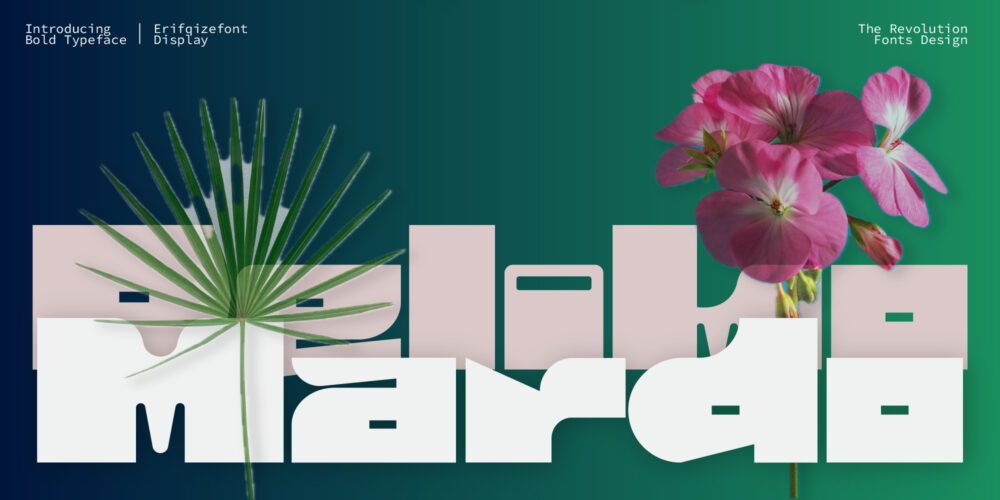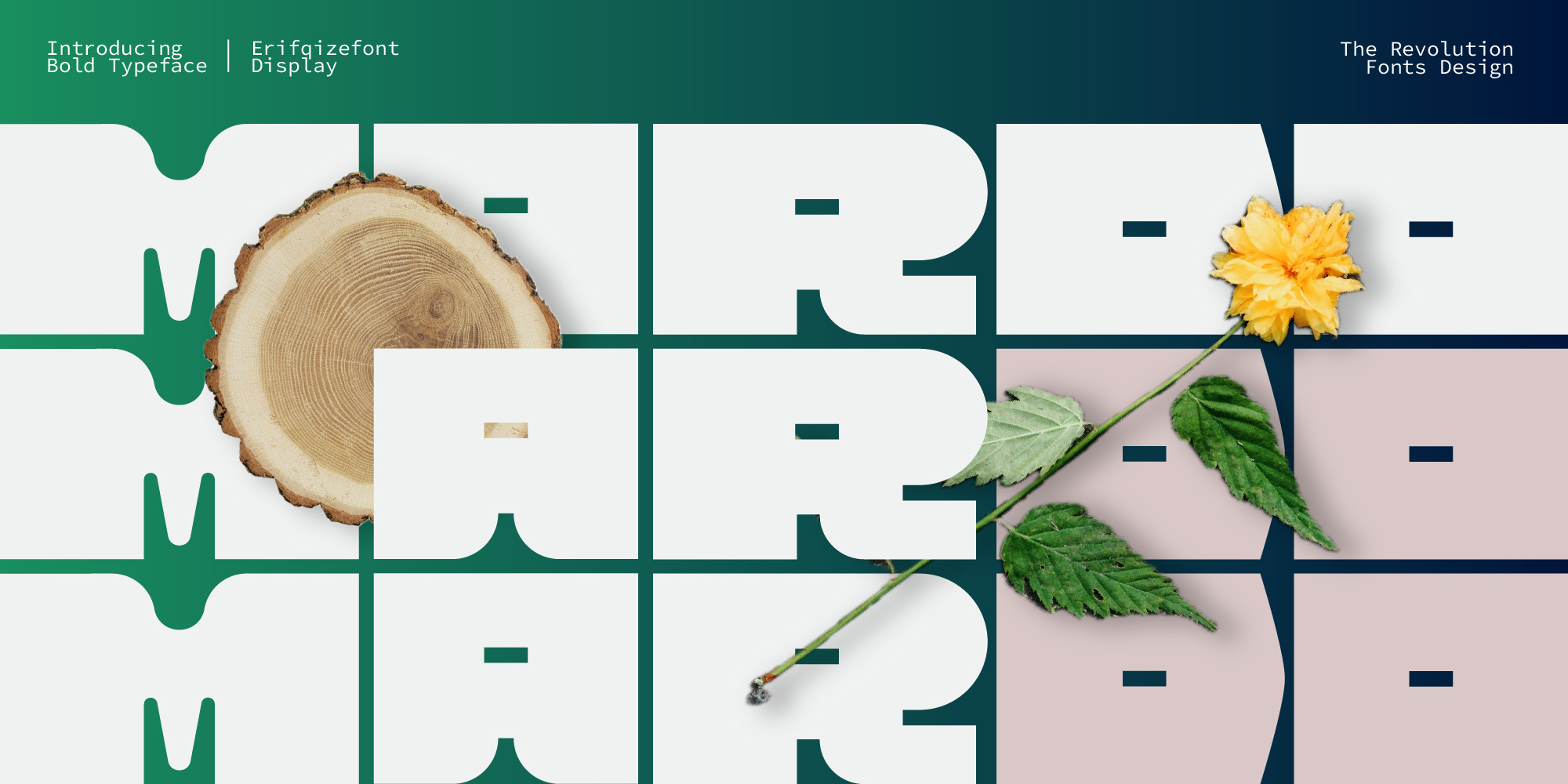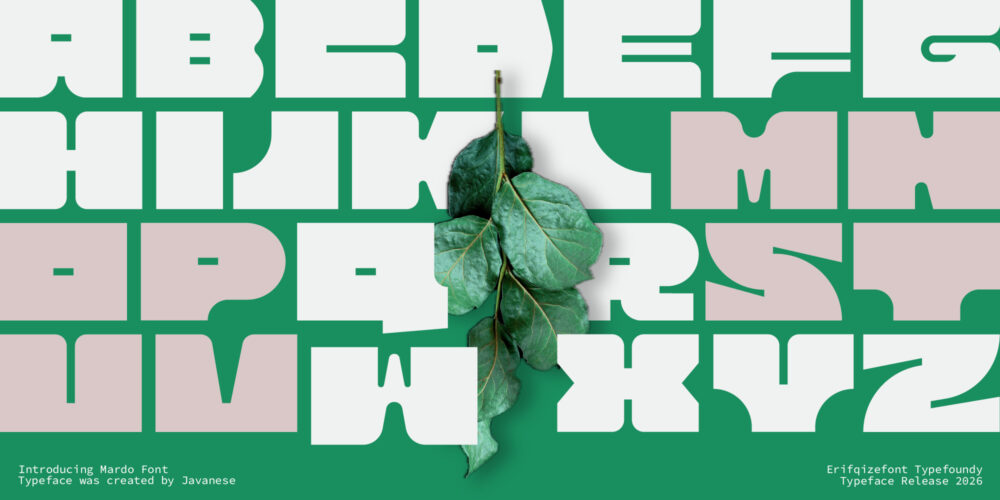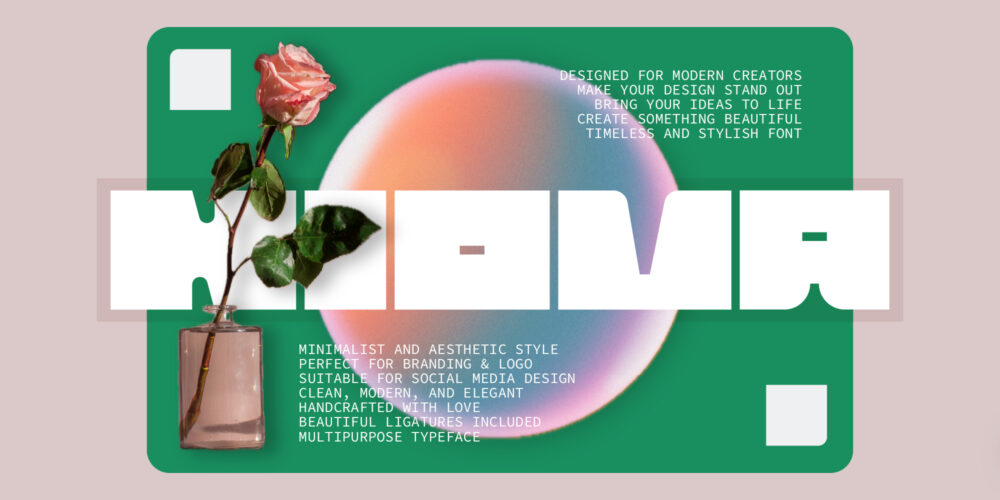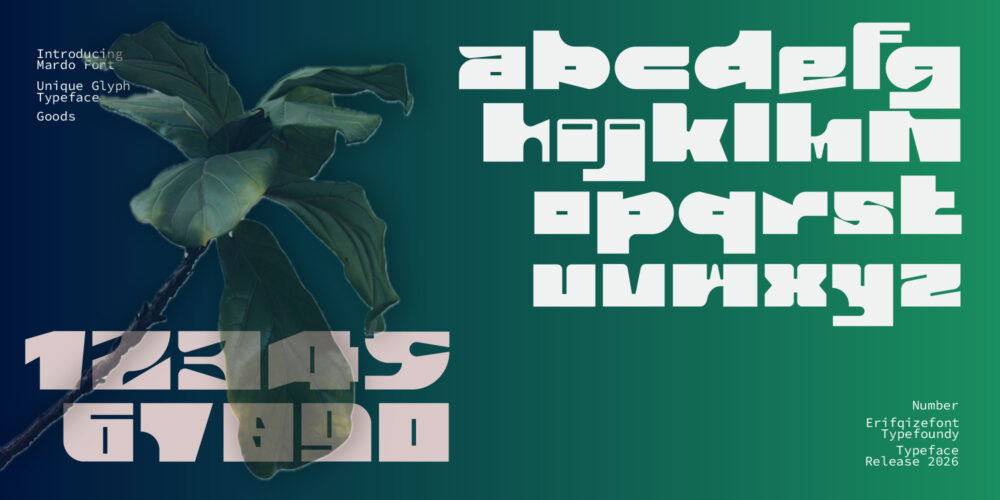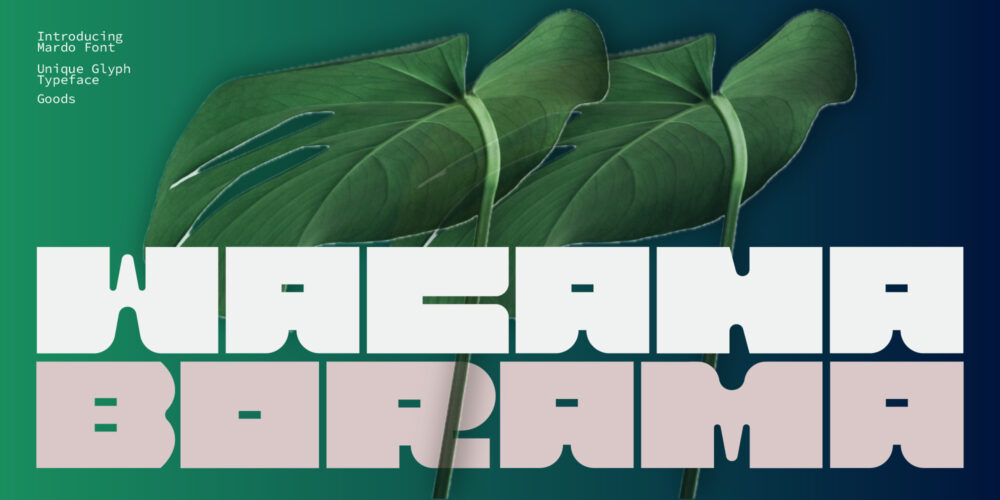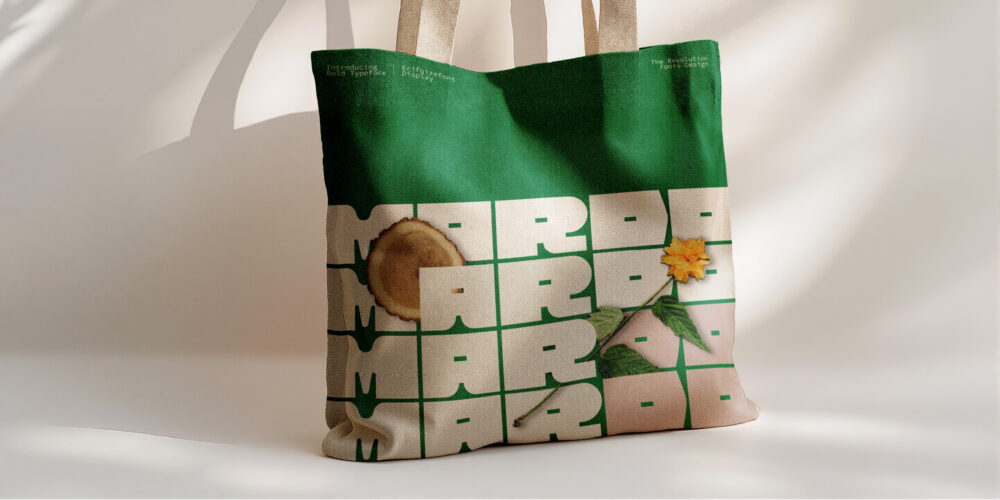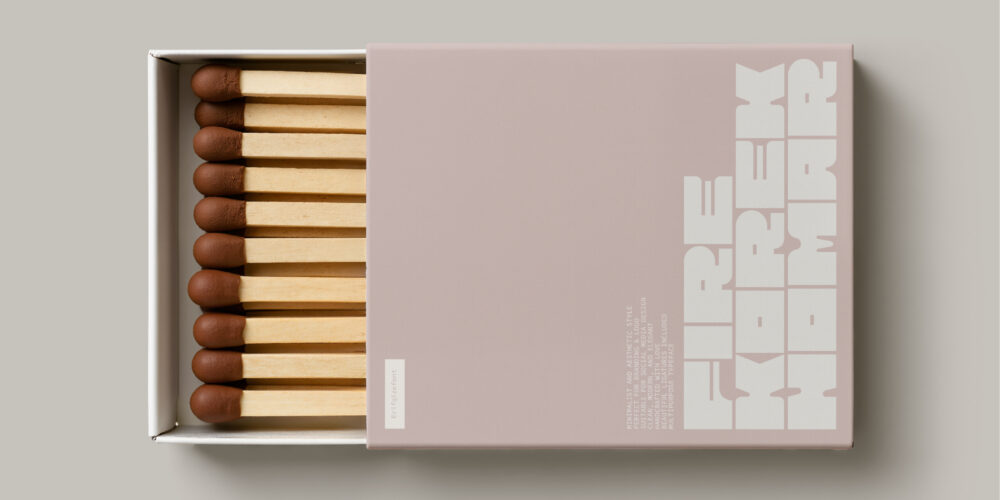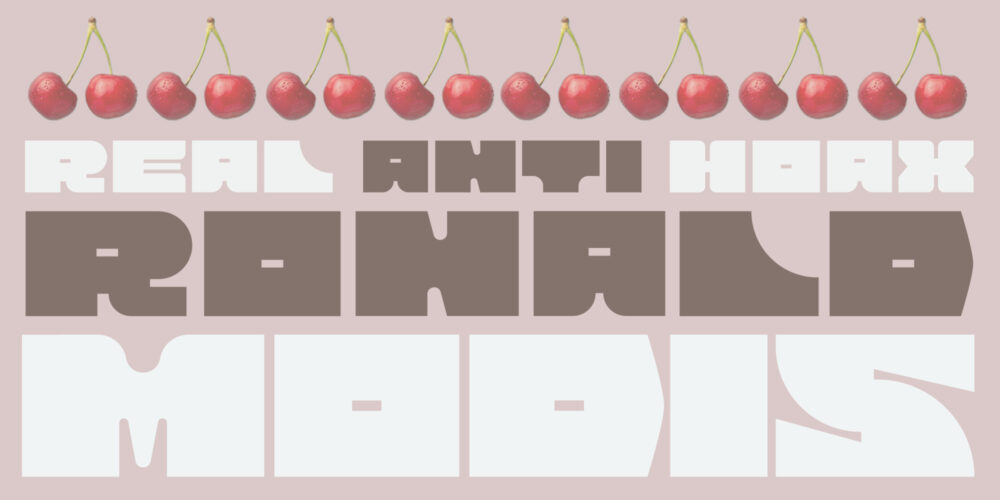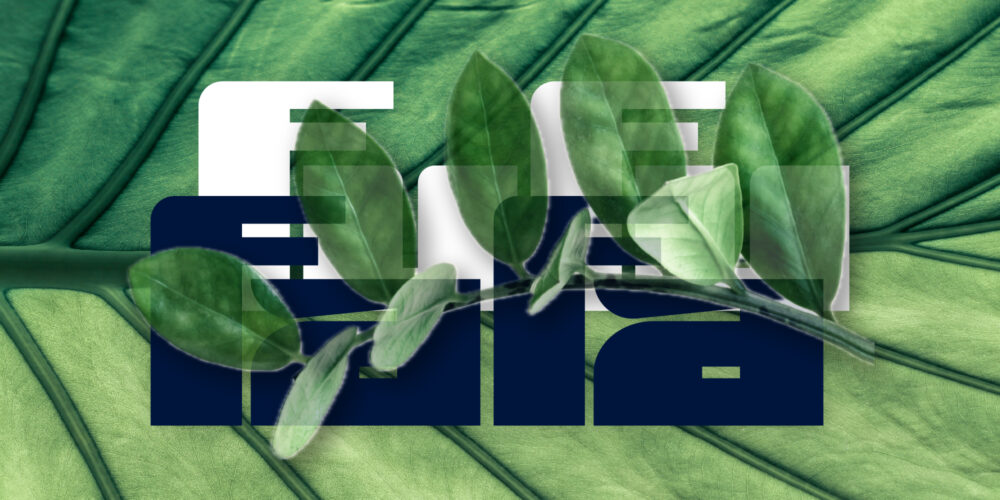
Mardo
MARDO – A Bold Revolutionary Display Typeface
Mardo is a high-impact display typeface designed for those who want their message to be felt as much as it is read. Featuring a heavy, block-based structure with sharp geometric precision, Mardo redefines the boundaries of modern typography. Its unique negative space and solid architecture create a sense of unshakeable strength and professional authority.
Whether you are crafting a cutting-edge brand identity, designing high-street fashion labels, or building massive headlines for digital media, Mardo provides the visual weight needed to command attention. It is where industrial rigidity meets contemporary art—a true revolution in font design.
Mardo – Bold Playful Font
MARDO is a bold display typeface with a strong geometric structure and playful personality. Designed with thick letterforms and unique cut details, MARDO delivers a modern yet organic feel—perfect for eye-catching headlines, branding, posters, and creative layouts.